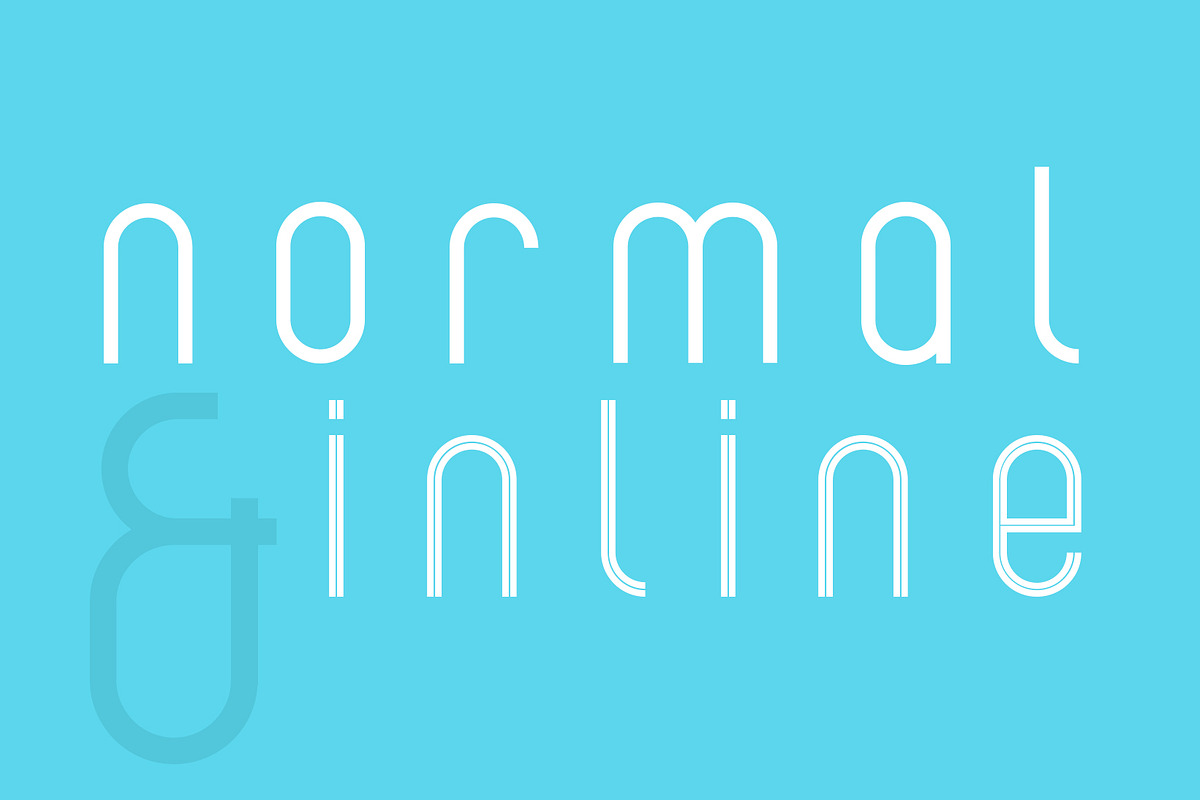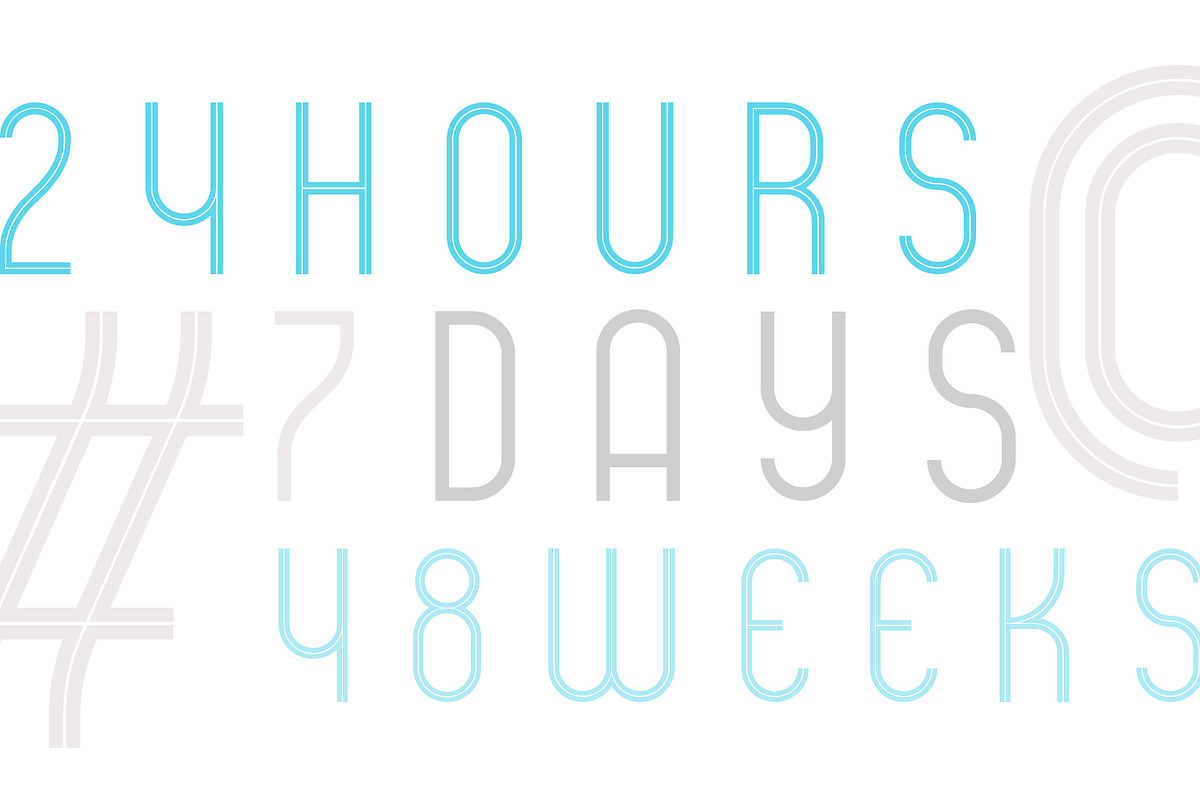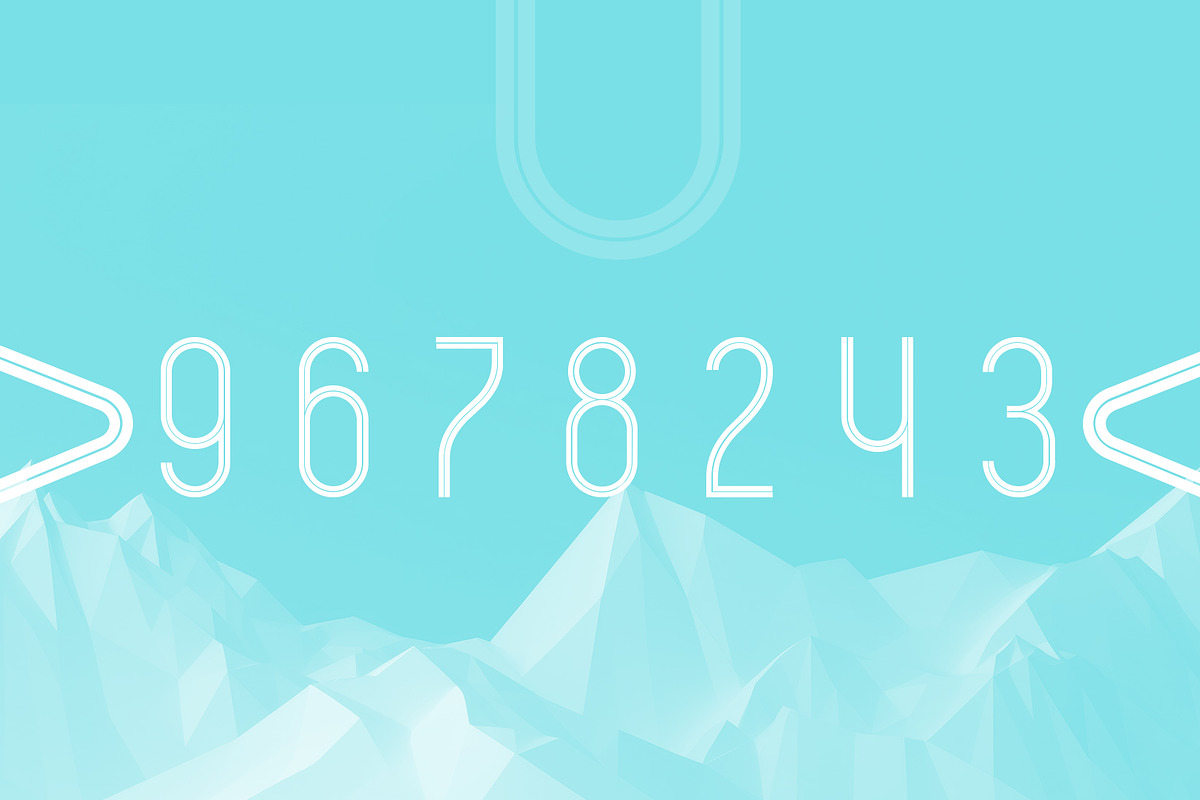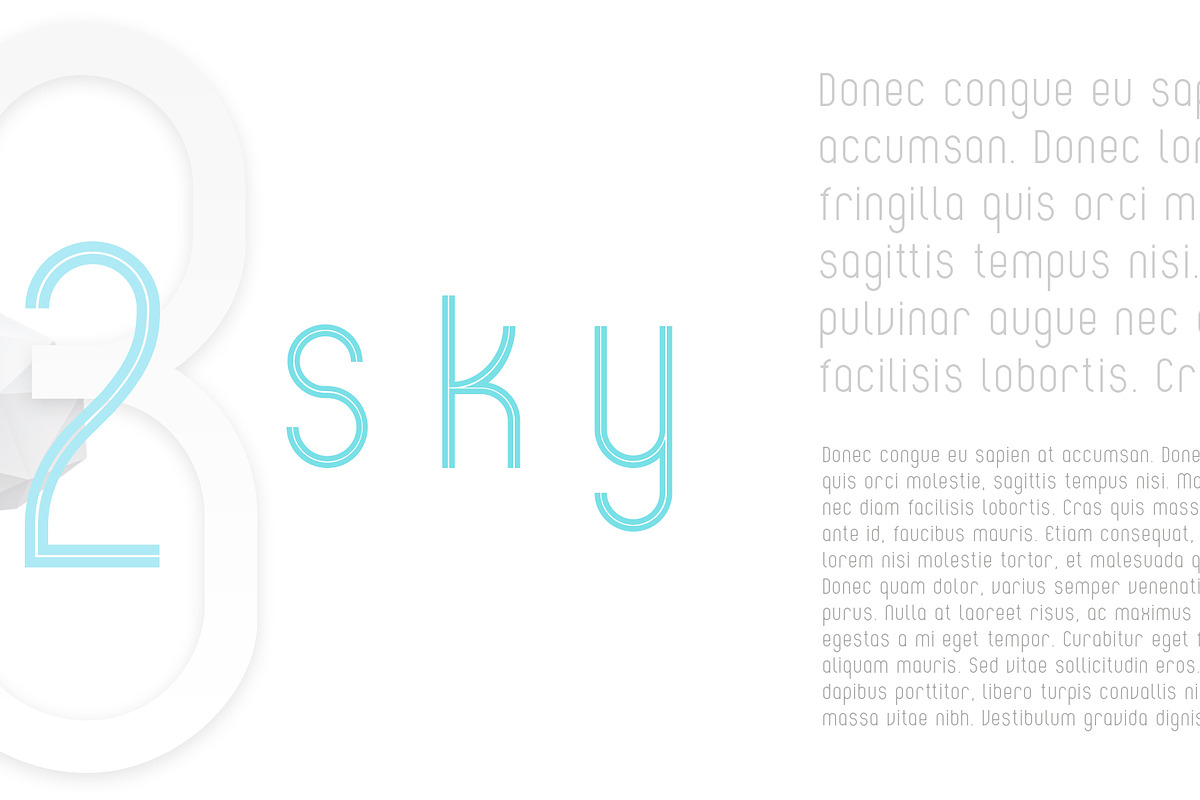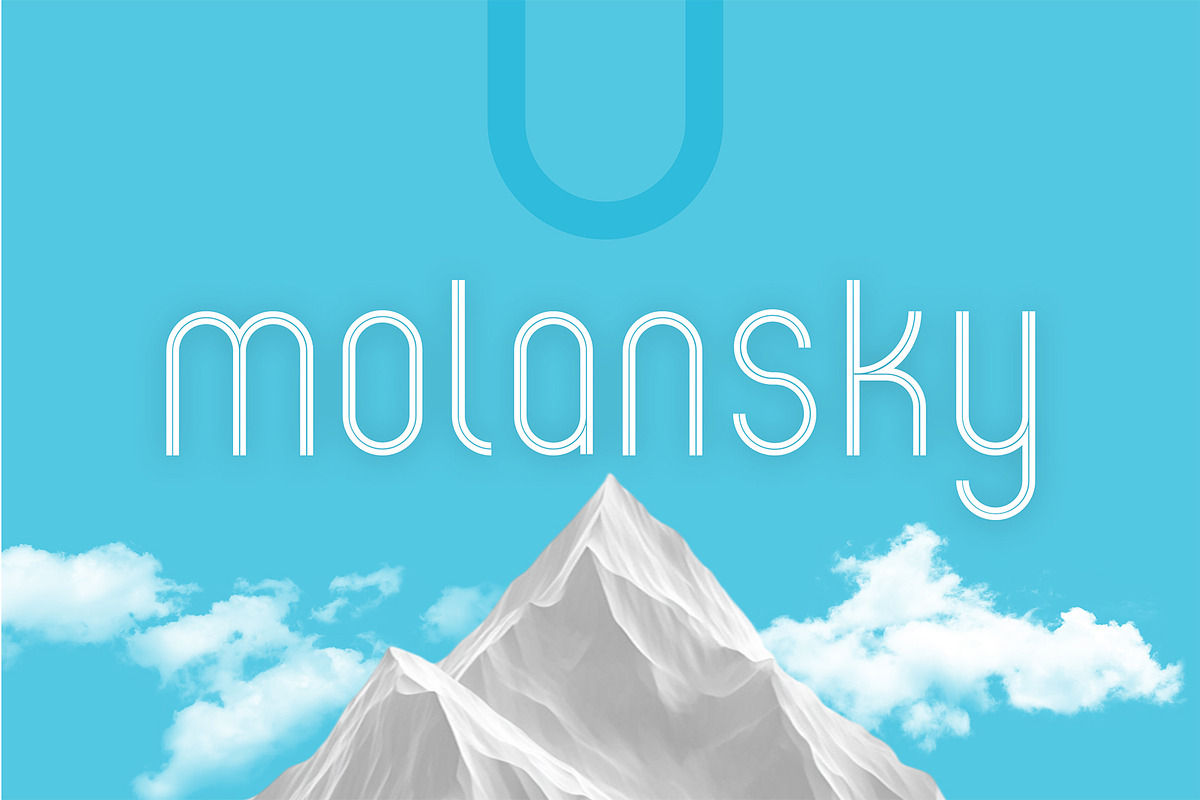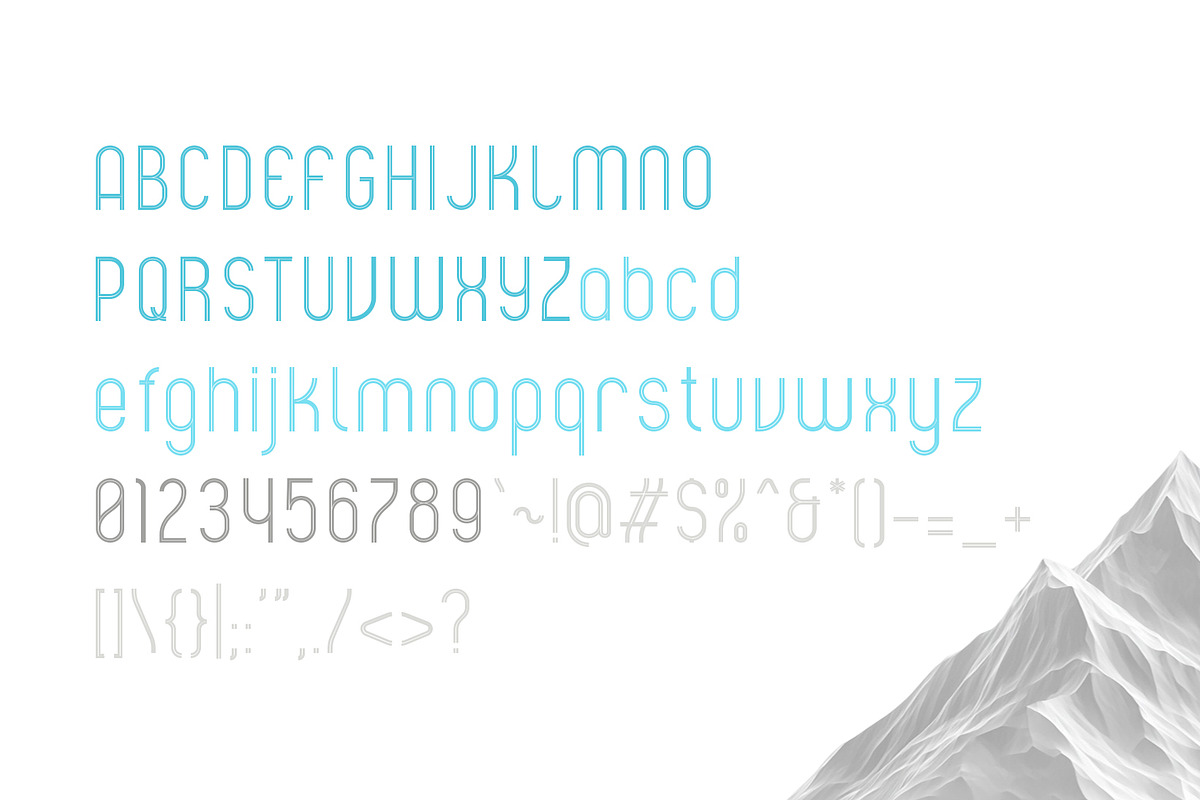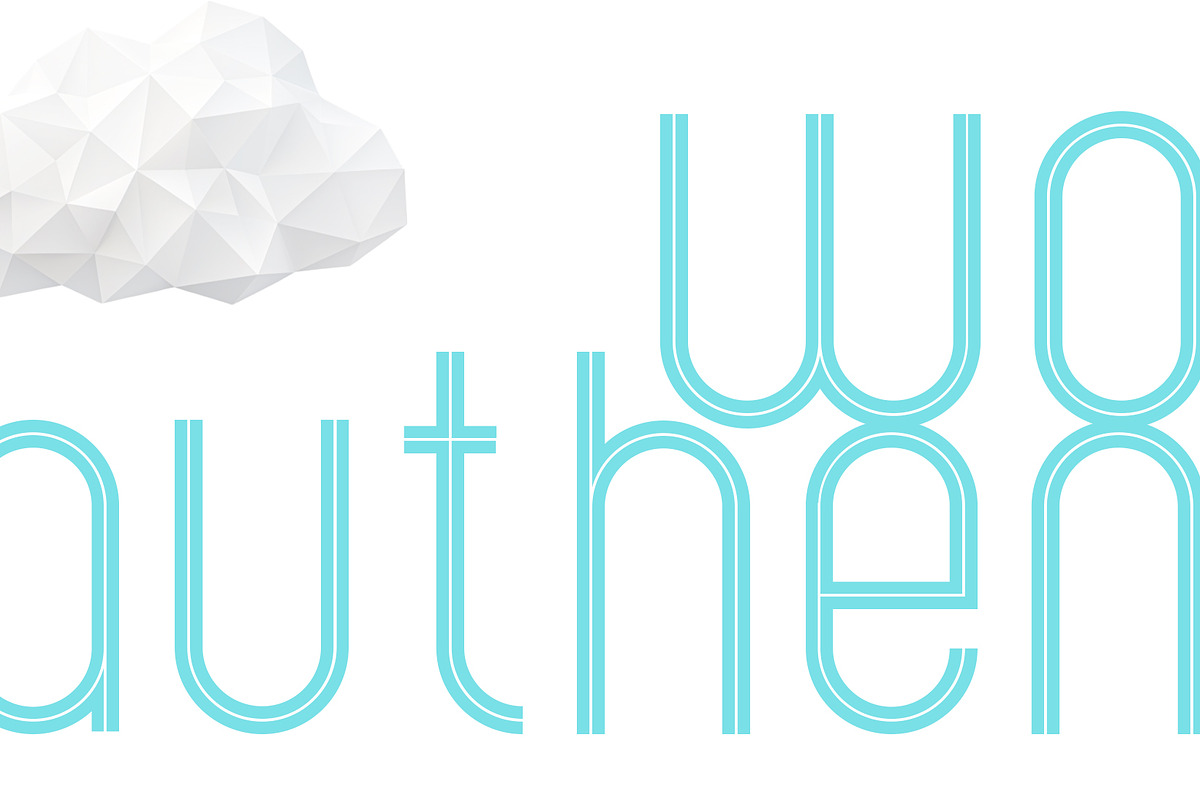
Molansky
Molansky is a clean, modern and minimalist font that inspired by curved shape. It's very versatile in use, especially in logo design or brand identity project. It comes with two styles : regular and inline